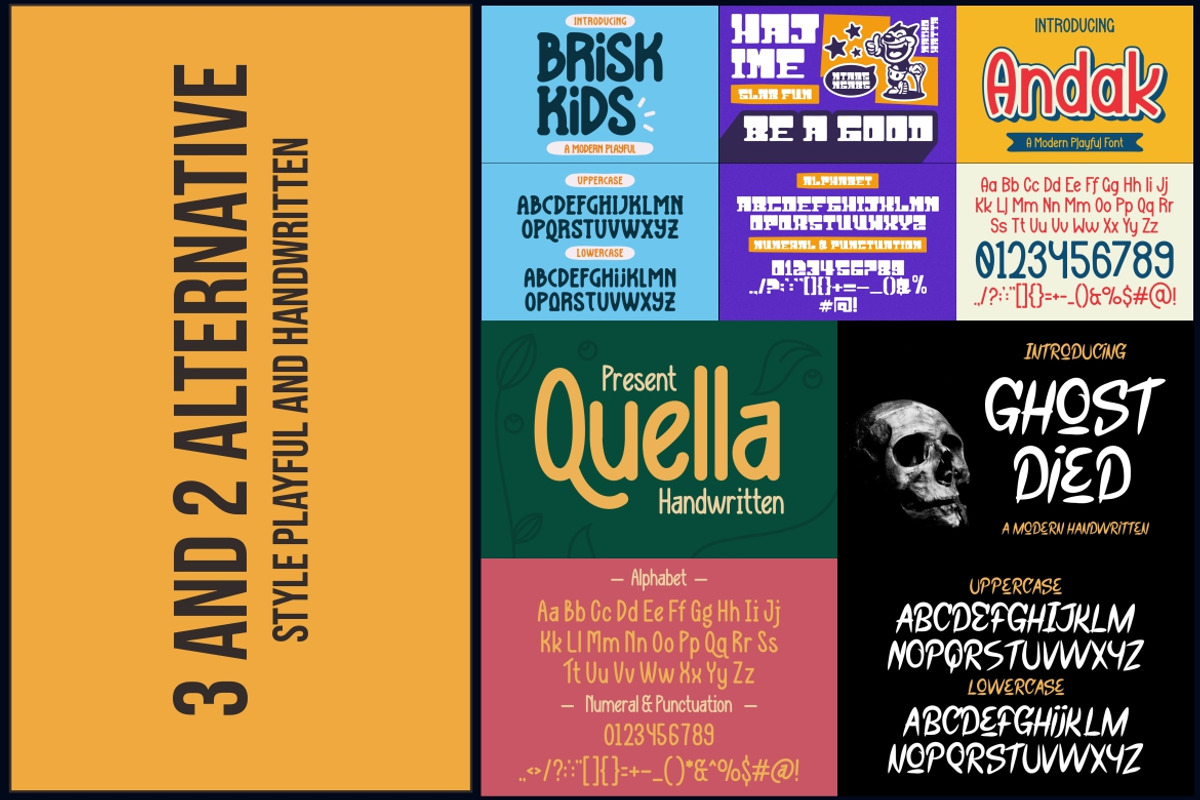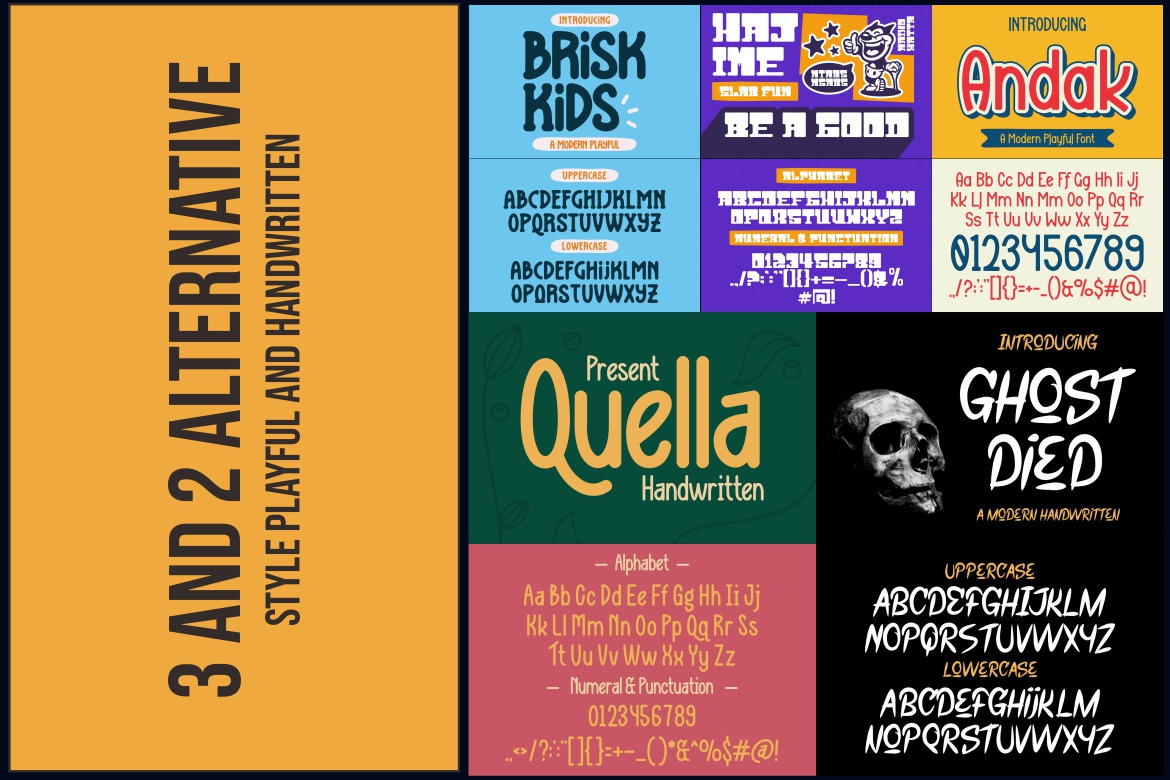
Bundle Font Playful and Hanwritten
Introducing our new product Font Bundle - Modern Font
Font Bundle - Modern Font is a bold and authentic display font. The font is suitable for any branding project like logo, template design, esport, and many more. outstanding in a wide range of contexts.